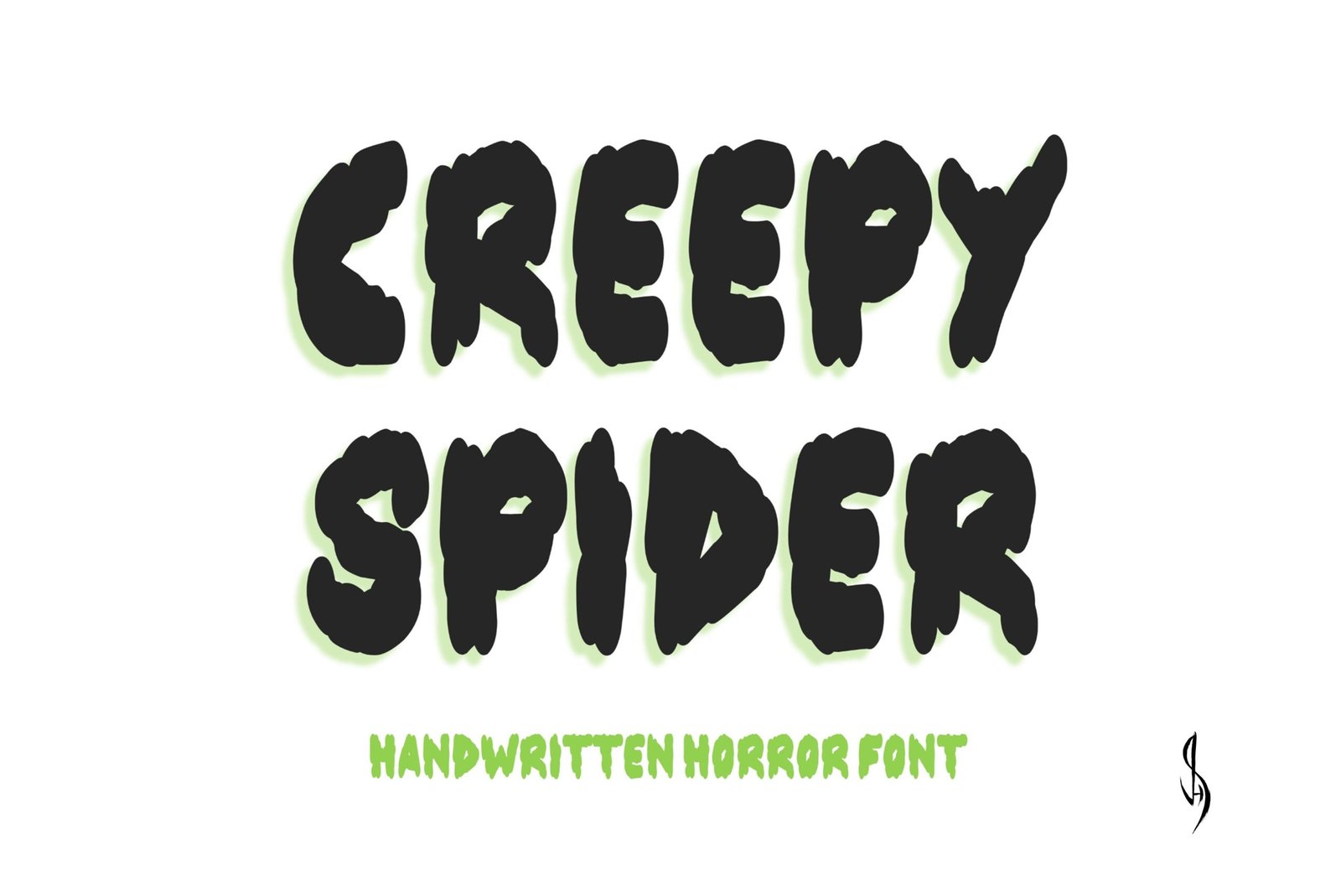
Creepy Spider Font
Cute horror font. “Creepy Spider”. Perfect for advertising and display purposes, including banners, book covers, shirts, posters, logos and much more!
This is an ALL CAPS font, featuring numbers, characters, and punctuation.